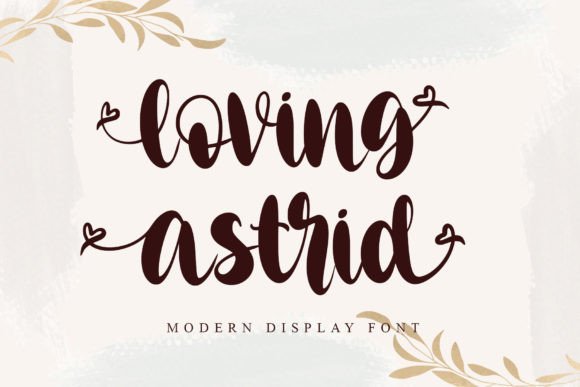
Enter the enchanting realm of typography with the Loving Astrid font, a captivating creation crafted by the talented thomasaradea. This exquisite script font exudes a captivating aura that adds a touch of sophistication to your digital expressions.
Immerse yourself in the world of blogging, where words dance across the screen, captivating readers with their charm. With Loving Astrid as your font of choice, your blog articles will shine like radiant gems, captivating attention and leaving a lasting impression on your audience.
Unleash your creativity and let your imagination soar as you design logos that command attention, branding that exudes individuality, and invitations that whisper promises of unforgettable events. Craft posters that ignite curiosity, advertisements that demand notice, and stationery that exudes timeless elegance.
With Loving Astrid at your fingertips, you can create animated films that transport viewers to magical realms, social media posts that spark engagement, and YouTube videos that leave an indelible mark on the digital landscape.
The Loving Astrid font is a versatile chameleon, effortlessly adapting to your creative vision and bringing your projects to life with its undeniable charm. It is a font that speaks to the heart, evoking emotions and leaving a lasting impression on all who encounter it.